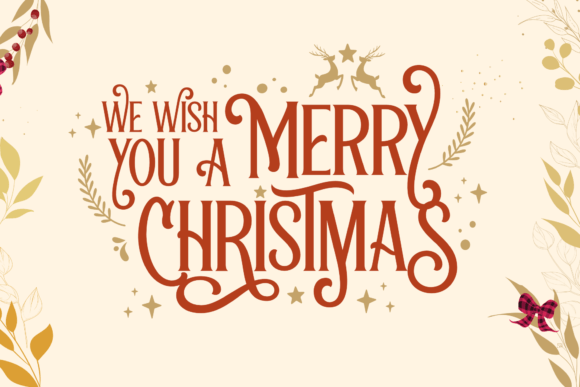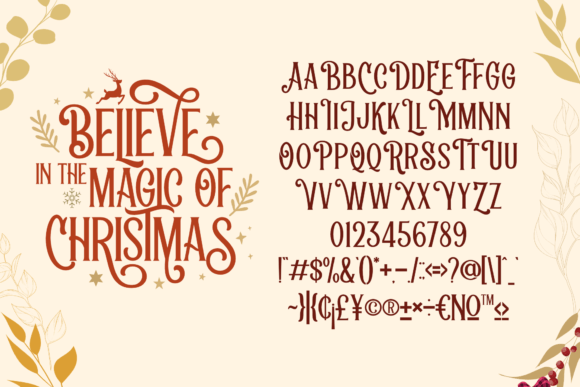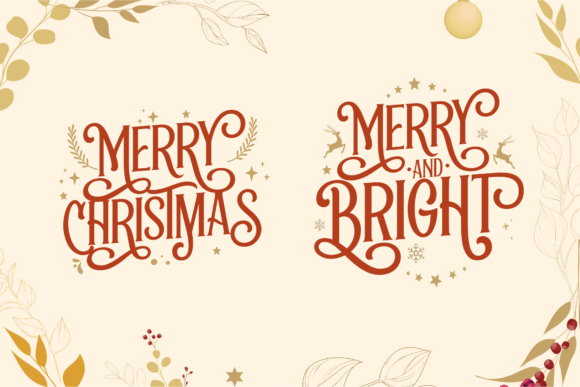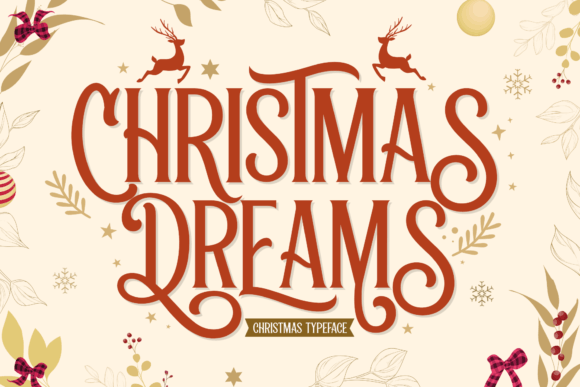
Introducing Christmas Dreams Font: The Ultimate Holiday Serif Font
Are you looking for a font that captures the essence of the holiday season? Look no further than Christmas Dreams Font, a joyful and festive serif font that’s perfect for adding a touch of elegance to your holiday creations. In this article, we’ll explore the features of Christmas Dreams Font and how it can elevate your designs to the next level.
A Festive and Classy Serif Font
Christmas Dreams Font is a beautifully crafted serif font that’s designed to evoke the magic of the holiday season. Its classic and sophisticated design makes it perfect for a wide range of applications, from holiday cards and invitations to packaging and advertising. Whether you’re a designer, crafter, or DIY enthusiast, Christmas Dreams Font is sure to become your go-to font for all your holiday projects.
Key Features of Christmas Dreams Font
- PUA Encoding: Christmas Dreams Font is PUA (Private Use Area) encoded, which means you can access all the glyphs and swashes with ease. This makes it easy to use the font in your designs, even if you’re not a professional font user.
- Joyful and Festive: The font’s joyful and festive design is perfect for capturing the spirit of the holiday season. Its elegant serifs and beautiful letterforms will add a touch of sophistication to any design.
- Classy and Elegant: Christmas Dreams Font is a classy and elegant serif font that’s perfect for designs that require a touch of sophistication. Its classic design ensures that it will never go out of style.
How to Use Christmas Dreams Font in Your Designs
Using Christmas Dreams Font in your designs is easy. Here are a few tips to get you started:
- Holiday Cards and Invitations: Use Christmas Dreams Font to create beautiful holiday cards and invitations that will impress your friends and family.
- Packaging and Advertising: Add a touch of elegance to your holiday packaging and advertising with Christmas Dreams Font.
- Crafting and DIY Projects: Use Christmas Dreams Font to add a personal touch to your crafting and DIY projects, such as holiday decorations and gift tags.
Benefits of Using Christmas Dreams Font
There are many benefits to using Christmas Dreams Font in your designs. Here are a few:
- Save Time: With Christmas Dreams Font, you can create beautiful holiday designs in no time. Its elegant design and PUA encoding make it easy to use and customize.
- Stand Out from the Crowd: Christmas Dreams Font is a unique and elegant font that’s sure to make your designs stand out from the crowd.
- Professional Results: With Christmas Dreams Font, you can achieve professional-looking results without spending hours designing from scratch.
Christmas Dreams Font is a joyful and festive serif font that’s perfect for adding a touch of elegance to your holiday creations. Its PUA encoding, elegant design, and classy serifs make it a must-have font for designers, crafters, and DIY enthusiasts. Whether you’re creating holiday cards, packaging, or DIY projects, Christmas Dreams Font is sure to make your designs come alive. So why wait? Add Christmas Dreams Font to your design toolkit today and start creating beautiful holiday designs with ease!
- What is Christmas Dreams Font? Christmas Dreams Font is a joyful and festive serif font designed for holiday creations.
- Is Christmas Dreams Font easy to use? Yes, Christmas Dreams Font is easy to use, even for those who are new to font usage. Its PUA encoding makes it easy to access all the glyphs and swashes.